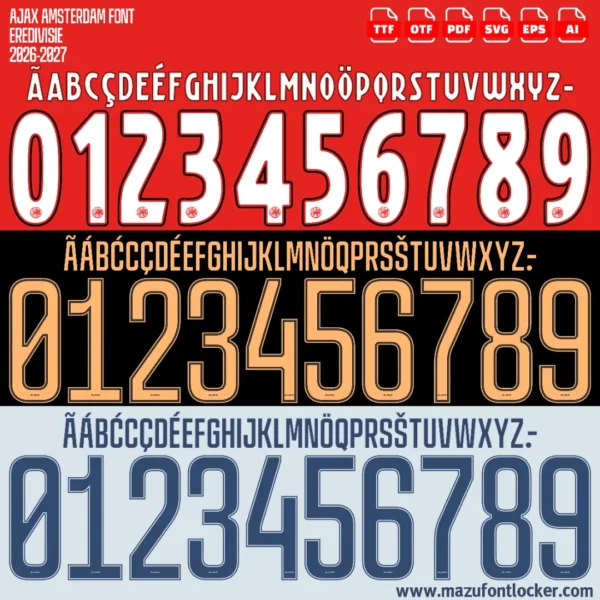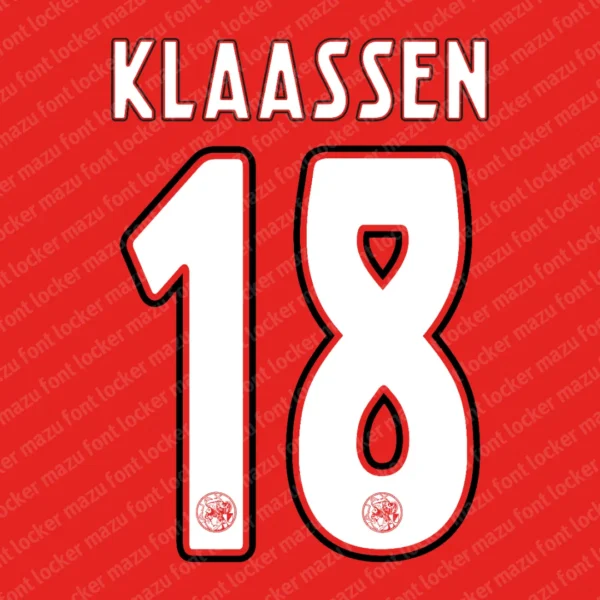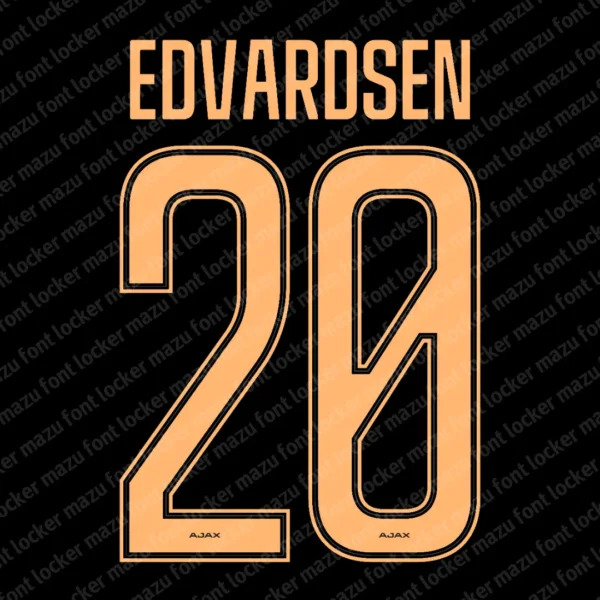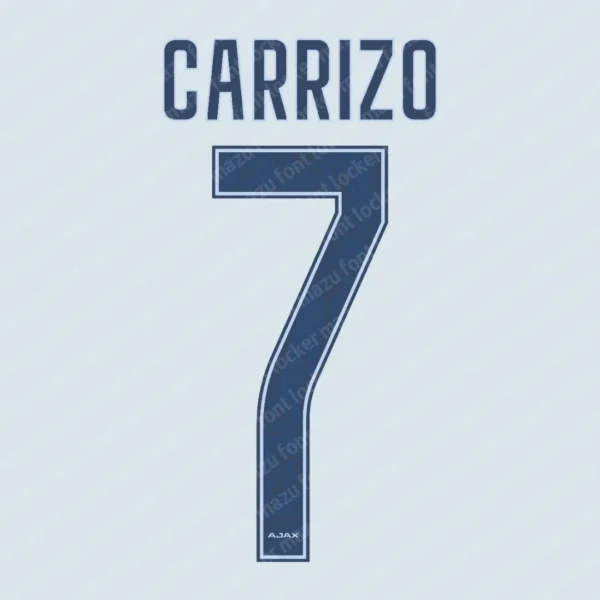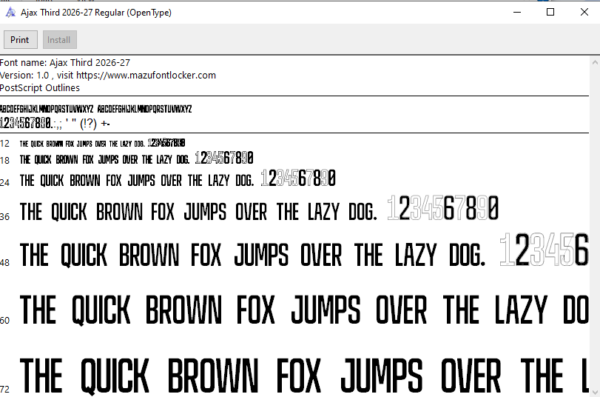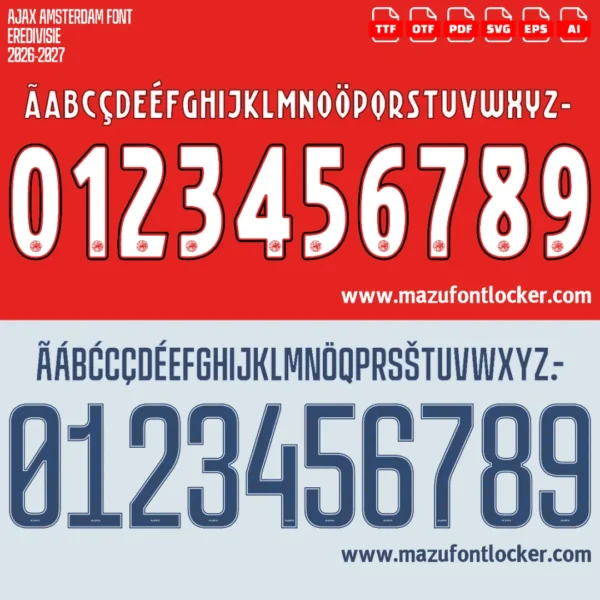
Ajax Amsterdam 2026-2027 Font Vector – Stunning Godenzonen Legacy Typeface
Download the Ajax Amsterdam 2026-2027 Font Vector (AI, EPS, SVG, PDF, OTF, TTF) and embrace the legendary red-and-white legacy of iconic match typography that reflects the fearless spirit of the Amsterdam giants, dominating the Eredivisie and battling Europe’s elite throughout the unforgettable Ajax Amsterdam 2026-2027 campaign.
This premium font faithfully recreates the official match lettering worn by Ajax during the 2026-2027 season — delivering authentic Amsterdam heritage, legendary Total Football identity, elite Dutch craftsmanship, fearless attacking philosophy, world-renowned youth academy excellence, unwavering championship ambition, and the unmistakable red-and-white pride that has inspired football greatness across Europe for generations.
Ajax Amsterdam 2026-2027 Font Vector – Stunning Godenzonen Heritage Typeface
The Ajax Amsterdam 2026-2027 Font Vector is a premium typeface that accurately recreates the official match lettering worn by Ajax during the exciting 2026-2027 season. This high-quality vector font kit captures the clean, modern, and instantly recognizable typography used by the Dutch giants, perfectly complementing the club’s timeless red-and-white identity. The 2026-2027 home kit continues Ajax’s rich tradition with a classic design by adidas, featuring subtle historical details that celebrate the club’s remarkable heritage.
Designed for professional designers, football enthusiasts, and passionate Ajax supporters, the Ajax Amsterdam 2026-2027 Font Vector delivers exceptional authenticity for creating realistic jersey mockups, football merchandise, social media graphics, match posters, and custom fan artwork. It pairs perfectly with Ajax’s iconic visual identity, renowned throughout Dutch and European football.
Why Choose Ajax Amsterdam 2026-2027 Font Vector
This font stands out thanks to its precise vector construction and authentic club styling. Every character has been carefully recreated to match the official shirt lettering used throughout the 2026-2027 season. Whether you’re producing realistic kit templates or creating eye-catching football content, the Ajax Amsterdam 2026-2027 Font Vector delivers a genuine professional appearance.
The lettering featured in the Ajax Amsterdam 2026-2027 Font Vector combines bold geometric shapes with clean contemporary proportions. The result is a highly readable and professional design that reflects the elegance, tradition, and winning culture of one of Europe’s most successful football clubs.
The numerals feature balanced curves, sharp detailing, and excellent spacing for maximum readability. Built entirely as scalable vectors, every number remains crisp for jersey customization, digital graphics, posters, and large-format printing.
- Complete uppercase A–Z alphabet and numbers 0–9 in authentic Ajax Amsterdam 2026-2027 style
- Includes authentic crest glyph placement beneath player numbers
The Ajax Amsterdam 2026-2027 Font Vector is an independently designed typeface package inspired by the official shirt lettering used during the 2026-2027 season. It has been carefully recreated for football enthusiasts, graphic designers, collectors, and creators producing custom jersey concepts, nostalgic football artwork, and fan-made projects.